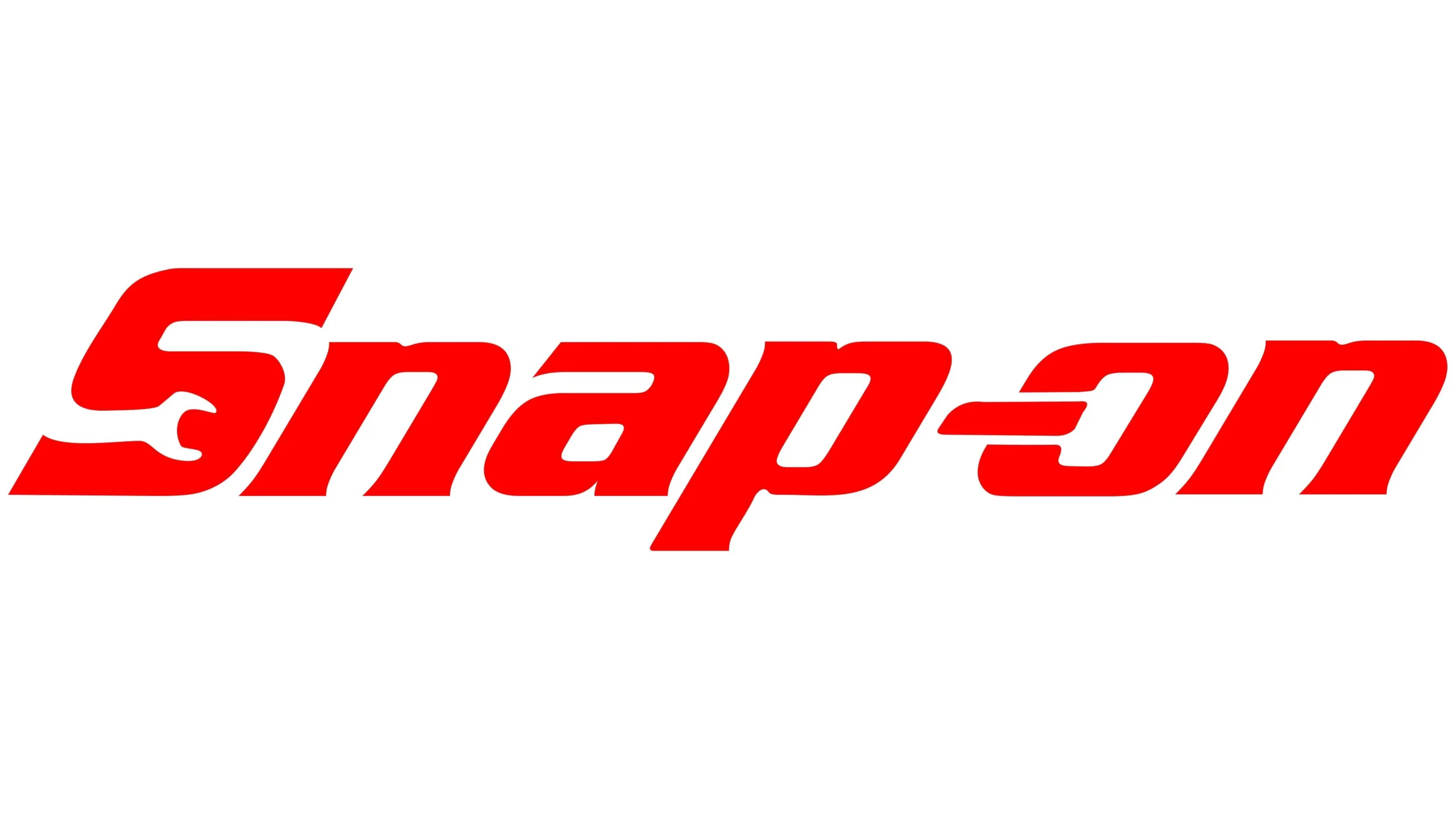
About Snap On Logo Font
At Fontsbird, we’re big fans of typography that tells a story. We recently took a good look at the “Snap On Font” and wanted to share why it caught our eye. We came across it while working on a project for tool-industry branding, and the bold, professional look of the Snap-on Incorporated “name plate” style really stood out.
We’ve used it in mock-ups of a wrench handle, socket imagery and gear branding to bring that industrial, high-quality feel. Our creative team loves how this typeface channels the reliability and precision of Snap-on tools and equipment.
The typeface used by Snap-on, often cited as Serpentine EF Bold Italic, is a bold, italicised, angular, geometric display font. It draws on style cues of industrial signage and tool-mark aesthetics. The designer details are a bit murky, but what’s clear is how this font works as a visual symbol for the brand name. Its letterforms are sharp, bold and built to endure.
Features of the Font
Here are some of the stand-out features we noticed and love:
- Strong bold weight: The font carries the “bold tool” look that fits the world of mechanics, equipment and repair. The letter shapes are heavy and confident, making the brand feel professional and built to last.
- Italic or slanted posture: That italic or slanted form gives a sense of motion or torque, perfect for a wrench or socket manufacturer. It’s not static; it feels like action.
- Geometric and angular form: The letterforms reflect angular tool edges. The combination of geometric and sharp styling links to industrial design and machinery.
- Distinctive symbol-style branding: When used in the red rectangle of Snap-on’s visual identity, this typeface becomes an iconic brand symbol. It’s more than a typeface; it’s part of the brand’s symbol of reliability and innovation.
- Versatility in branding: While tied to the brand, the font style is strong enough to translate into other uses such as on a wrench handle, socket name plate, marketing brochure or digital asset.
- Visual unity: The font pairs well with imagery of tools and equipment such as wrenches, sockets, handles, industrial elements and brings the typographic and visual world together into one cohesive look.
- Typographic character: It might not have extensive serif or decorative features (it’s more sans/industrial than serif), but that simplicity is part of its power: unmatched clarity, strength and readability in a branding context.
- Brand-centric usage: Because the font is tied to a strong brand voice, from manufacturer to marketer of tools, when you choose this style it communicates expertise, reliability and industrial heritage.
With all that in mind, this font isn’t just a display face; it’s a storytelling tool. We uncovered the story behind the Snap-on brand, and we’re excited to show how the typography plays its part.
Where can you use this font?
This typeface is ideal wherever you want to evoke the look and feel of heavy-duty tools, industry equipment, garage branding or professional service. For example:
On a tool box lid or name plate, where you want the “brand name” to jump out in bold, strong letterforms.
In marketing materials for automotive or aviation professionals and enthusiasts such as flyers, banners or brochures that reference the brand’s global footprint of over 130 countries and the world of diagnostics and repair information.
On packaging or visual identity for a manufacturer or distributor of tools and equipment, where you want that sense of heritage, innovation and durability to come through.
On digital assets or PNG files for web use, where you may want to download and use a version of the font that mirrors the logo typography of Snap-on. Search terms like “Snap On Font Free” or “Snap On Font Free Download” often show up.
On signage in a workshop or industrial environment, especially when paired with iconographic elements like wrenches, sockets, handles and the red rectangle brand symbol of Snap-on.
For any design that wants to feel like the brand is the leading global designer and marketer of tools, not just a run-of-the-mill supplier. Using that typeface style, you can evoke “expertise”, “commitment to innovation”, and “industrial excellence”.
When you want a typeface with personality that’s not just generic sans serif but with a bit of attitude, sharply angled, bold and built for endurance.
Even as part of a logotype imitation or tribute project, where you want to suggest the “Snap on tools” world with wrench imagery, equipment, symbol and typography that is strong and craft-oriented.